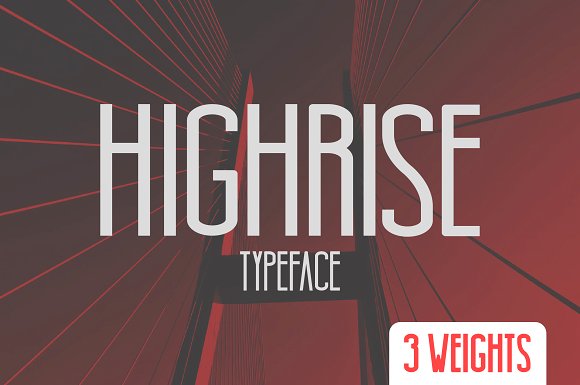
Introducing Highrise Font - A Typographical Ascent into Urban Grandeur
In a world where words dance across screens and pages, the choice of font holds immense power. It's not just about legibility; it's about evoking emotions, setting the tone, and leaving a lasting impression. Highrise Font, a creation of the talented Mike Hill, is a typographic masterpiece that embodies the spirit of towering skyscrapers and the allure of urban landscapes.
Highrise Font: A Sans Serif Symphony for the Modern Visionary
Highrise Font belongs to the sans serif family, a group of fonts characterized by their clean lines and absence of serifs, those small strokes at the ends of letterforms. This simplicity and clarity make Highrise Font a perfect choice for contemporary designs, where minimalism and functionality reign supreme.
With its tall, slender structure, Highrise Font exudes an air of sophistication and elegance. Each letterform stands tall like a skyscraper, reaching towards the heavens with unwavering confidence. This vertical emphasis creates a sense of height and grandeur, making Highrise Font an ideal choice for projects that demand attention and impact.
The Open Spaces of Highrise: A Canvas for Creativity
Highrise Font's generous spacing between letterforms adds to its visual appeal. This airy quality invites creativity and experimentation, allowing designers to play with leading and tracking to achieve striking effects. The open spaces between characters create a sense of rhythm and flow, making Highrise Font a delight to read, even in large blocks of text.
The Urban Inspiration Behind Highrise: A Tale of Concrete and Glass
Mike Hill, the creative mind behind Highrise Font, drew inspiration from the towering architectural structures that define modern cityscapes. The font's tall, narrow proportions mirror the verticality of skyscrapers, while its sharp angles and clean lines capture the essence of glass and steel facades. This urban influence gives Highrise Font an undeniable contemporary edge, making it perfect for projects that seek to evoke a sense of modernity and progress.